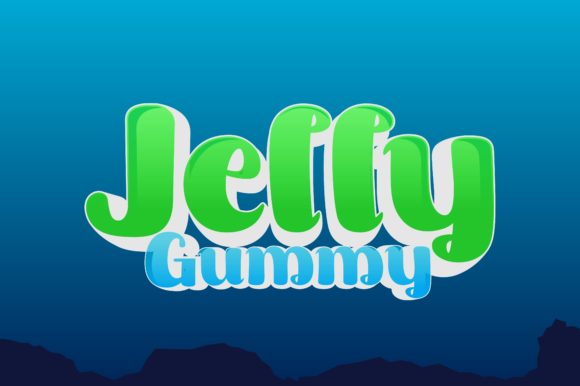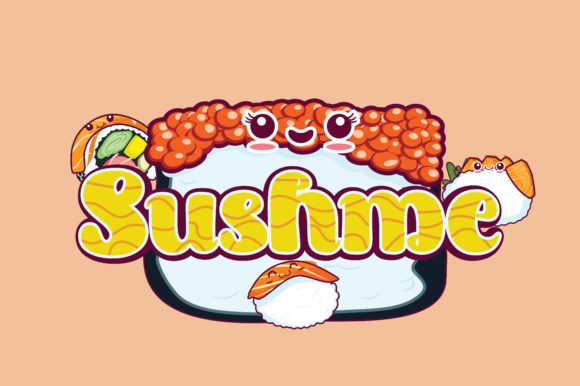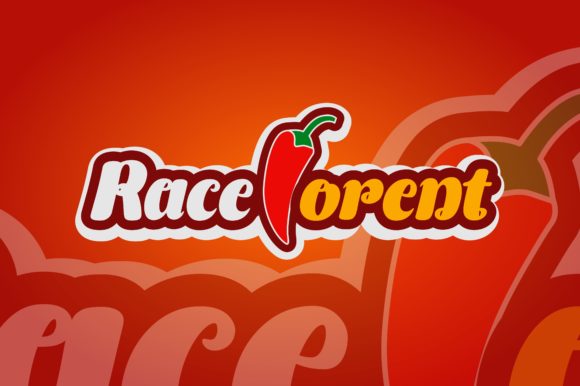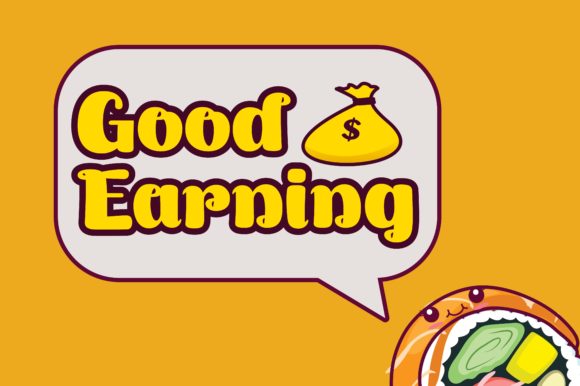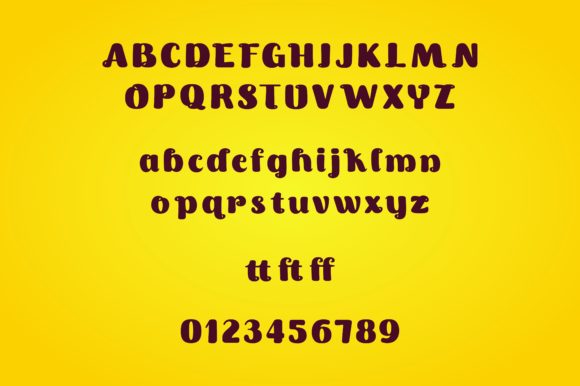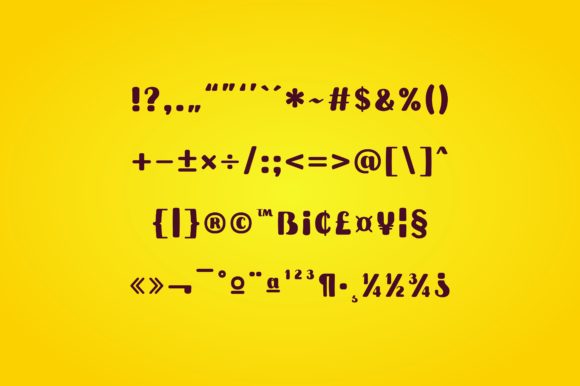
Birdmathon Font: The Ultimate Display Font for Creative Designs
Are you tired of using the same old fonts for your designs? Look no further! Introducing Birdmathon, a bold typeface display font that packs the right punch to grab attention. This versatile font is perfect for a wide range of creative projects, from logo design and branding to greeting cards, packaging designs, posters, and more.
What Makes Birdmathon Stand Out?
Birdmathon is not just another font; it’s a statement piece. Its bold and eye-catching design makes it perfect for designers and crafters looking to add a touch of personality to their work. With Birdmathon, you can create stunning visual effects that will leave a lasting impression on your audience.
Key Features of Birdmathon Font
- Bold and Eye-Catching: Birdmathon is designed to grab attention. Its bold strokes and unique lettering make it perfect for headlines, titles, and emphasis text.
- Versatile: This font is suitable for a wide range of creative projects, including logo design, branding, greeting cards, packaging designs, posters, and more.
- Easy to Read: Despite its bold design, Birdmathon is easy to read, making it perfect for body text and captions.
- High-Quality: Birdmathon is a high-quality font, carefully crafted to ensure that it looks great in any design.
Uses of Birdmathon Font
Birdmathon’s versatility makes it perfect for a wide range of creative projects. Here are some ideas to get you started:
- Logo Design: Create a bold and memorable logo for your brand with Birdmathon.
- Branding: Use Birdmathon to create a consistent visual identity for your brand across all marketing materials.
- Greeting Cards: Add a touch of personality to your greeting cards with Birdmathon’s unique and eye-catching design.
- Packaging Designs: Make your product stand out on store shelves with Birdmathon’s bold and attention-grabbing design.
- Posters: Create stunning posters that grab attention with Birdmathon’s bold and eye-catching design.
Tips for Using Birdmathon Font
Here are some tips to help you get the most out of Birdmathon:
- Use it Sparingly: Birdmathon is a bold font, so use it sparingly to avoid overwhelming your design.
- Pair it with Other Fonts: Pair Birdmathon with other fonts to create a unique and visually appealing design.
- Experiment with Colors: Experiment with different colors to find the perfect combination that works with Birdmathon.